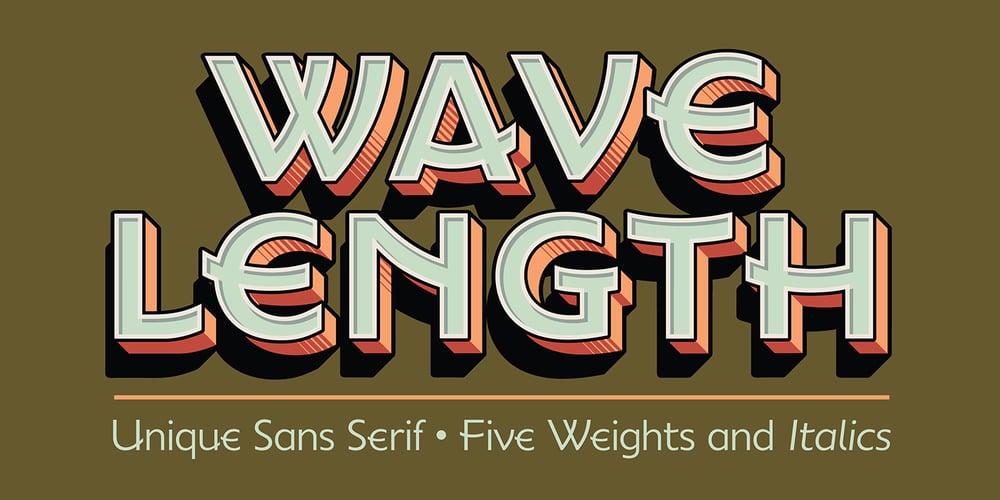
Wavelength
Wavelength font
Wavelength Font Family was designed by Mott Jordan and published by Mysterylab. Wavelength contains 10 styles and family package options. Wavelength is a unique sans serif family of five weights and italics. For all of it’s unusual detailing and arc-shaped strokes, this typeface is a solid workhorse, and is highly legible at all sizes. It’s an excellent starting point for a unique logotype or offbeat headline, and is able to cross genres and styles because of its essential letterform simplicity. Wavelength is contemporary, but with a nod to 1930s art deco, streamline, and even 1990s tech futurism. It’s great all-arounder that works well with shadows, outlines, extrusions added within vector editing programs.